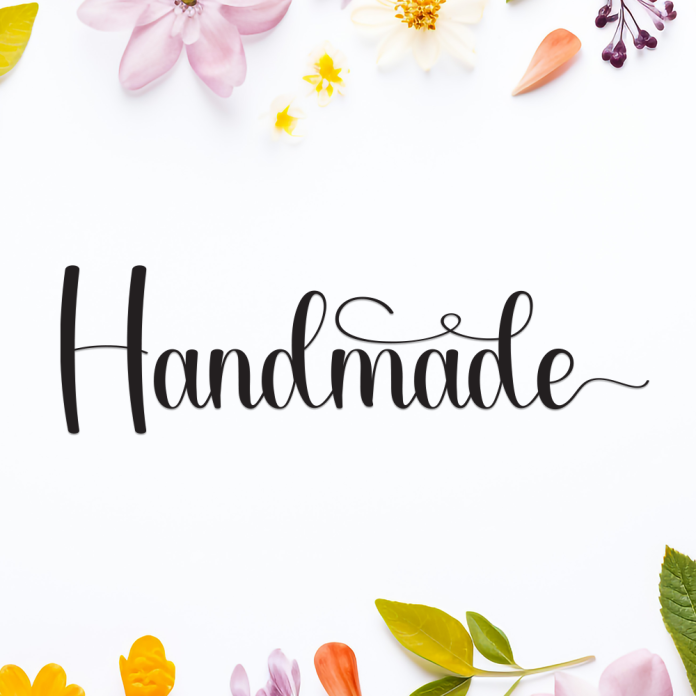
Handmade is a warm and organic handwriting font that captures the charm of handwritten notes and DIY crafts. With natural letterforms and a relaxed flow, this font adds a personal touch to any project.
Authentic handwriting style
Perfect for journals, scrapbooks, invitations, and packaging
Soft strokes and casual elegance
Includes uppercase & lowercase characters
Numbers and punctuation marks
Bring your designs to life with the cozy, hand-crafted feel of Handmade — because nothing beats a personal touch.